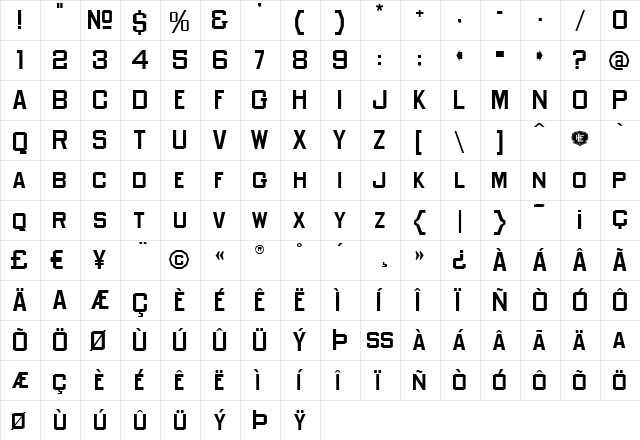
LHF Old Block RegMed Regular
LHF Old Block RegMed is a composed and adaptable typeface that performs quietly and consistently across a wide range of design contexts.